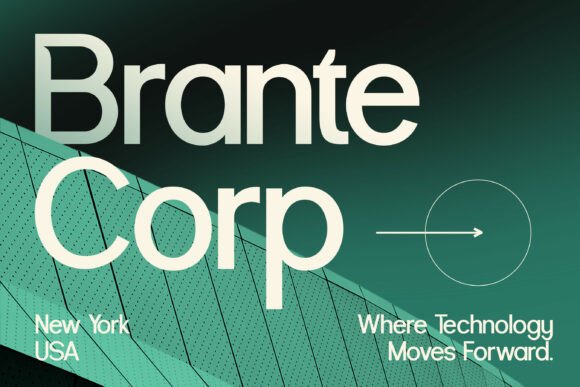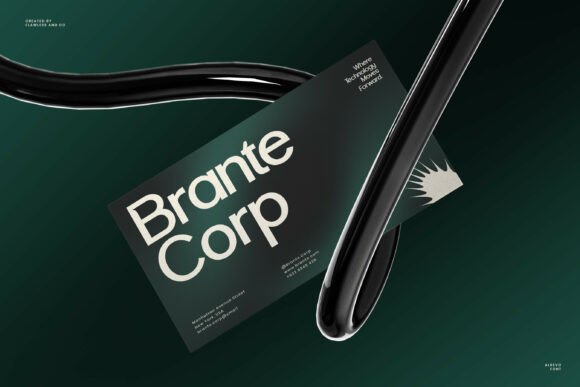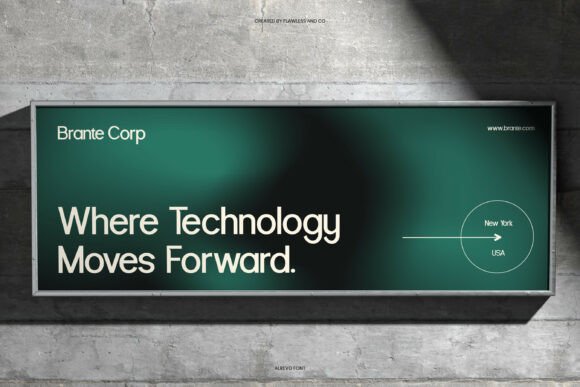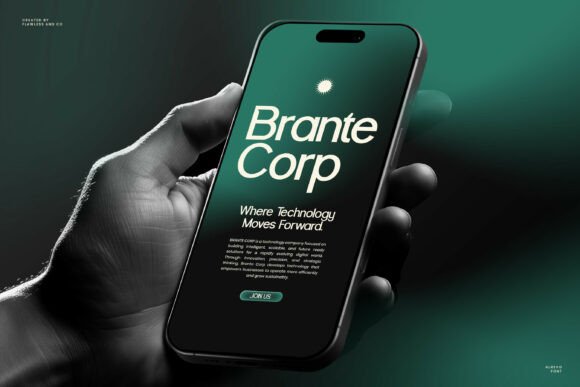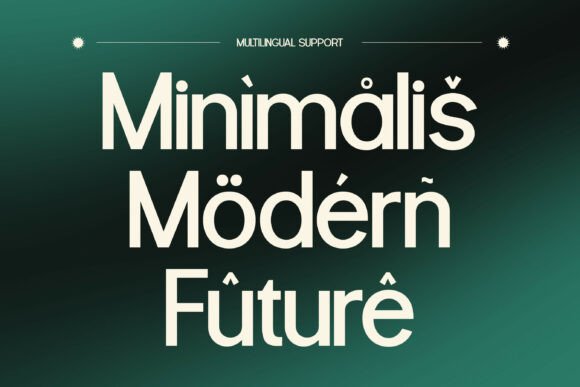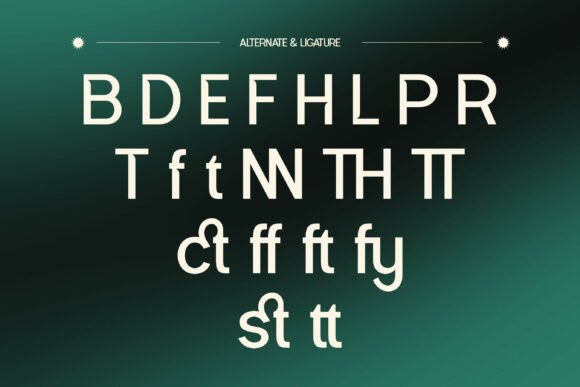
Introducing Alrevo Font: The Epitome of Modern Sans Serif Elegance
In the realm of typography, fonts play a pivotal role in conveying messages, evoking emotions, and creating lasting impressions. Among the myriad of fonts available to designers and crafters, Alrevo stands out as a beacon of modernity and sophistication. Alrevo is a contemporary sans serif font meticulously crafted with a clean, minimal, and sleek aesthetic that caters to the diverse needs of today’s creative professionals.
The Design Philosophy Behind Alrevo
Alrevo’s design is rooted in the principles of balance, simplicity, and versatility. Its creator aimed to produce a font that not only resonates with the modern design ethos but also offers a timeless appeal. The result is a typeface characterized by balanced proportions and smooth geometric forms. These features lend Alrevo a refined visual tone that exudes confidence and adaptability, making it an invaluable asset for a wide range of applications.
Key Features of Alrevo Font
- Clean and Minimal Aesthetic: Alrevo’s design eschews unnecessary embellishments, focusing on a pure and uncluttered look that ensures your message is delivered with clarity and impact.
- Modern Sans Serif: As a sans serif font, Alrevo offers a contemporary look that feels fresh and current. Its sleek lines and geometric shapes make it perfect for designs that demand a modern touch.
- Balanced Proportions: The font’s balanced proportions contribute to its readability and aesthetic appeal, ensuring that it performs well in both digital and print formats.
- Smooth Geometric Forms: The incorporation of smooth geometric forms enhances the font’s visual fluidity, lending it a soft yet robust appearance.
- Versatility: Alrevo’s versatile nature makes it suitable for a broad spectrum of projects, from corporate branding and advertising to digital media and craft projects.
Applications of Alrevo Font
Alrevo’s adaptability and aesthetic appeal make it an excellent choice for various applications. Here are some scenarios where Alrevo truly shines:
- Digital Media: For website content, social media posts, and digital advertising, Alrevo’s clean and modern look ensures your message stands out in a crowded digital landscape.
- Print Applications: Whether it’s for brochures, posters, business cards, or packaging, Alrevo’s print-friendly design guarantees that your printed materials look professional and captivating.
- Branding and Identity: Establishing a strong brand identity requires a font that communicates your brand’s values and personality. Alrevo’s confident and versatile nature makes it an ideal choice for logos, headings, and body text.
- Crafting and DIY Projects: For crafters and DIY enthusiasts, Alrevo can add a touch of modern elegance to handmade cards, journals, and other creative projects.
Why Choose Alrevo Font?
Choosing Alrevo for your design projects comes with several advantages:
- Enhanced Readability: Its well-balanced design and clear letterforms make it easy to read across different mediums.
- Timeless Appeal: Unlike trendy fonts that may quickly become outdated, Alrevo’s classic yet contemporary design ensures it remains relevant for years to come.
- Versatility: Its adaptability to various contexts and applications makes it a valuable addition to any designer’s toolkit.
Alrevo font represents a harmonious blend of modernity, simplicity, and elegance. Its design caters to the evolving needs of designers, crafters, and businesses looking for a typeface that communicates effectively and looks great in both digital and print formats. With its balanced proportions, smooth geometric forms, and versatile nature, Alrevo is poised to become a go-to font for projects that demand a clean, contemporary aesthetic. Whether you’re crafting a brand identity, working on a digital project, or creating something with your hands, Alrevo is an excellent choice that can elevate your work to new heights.